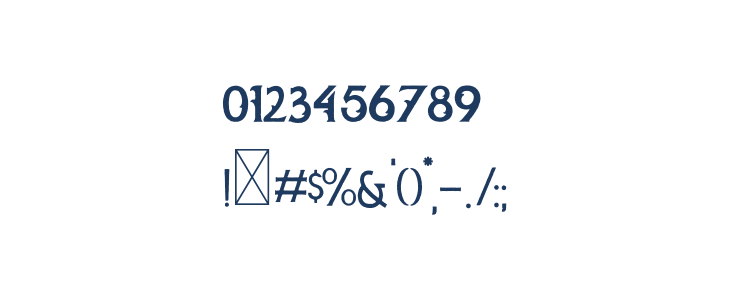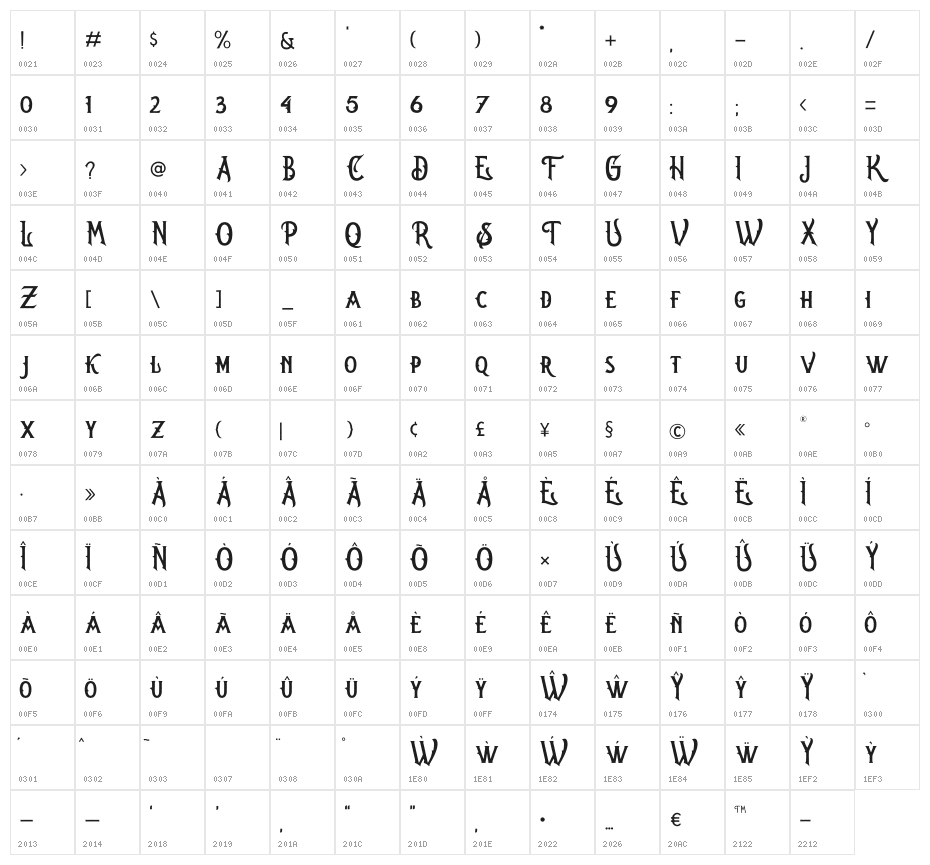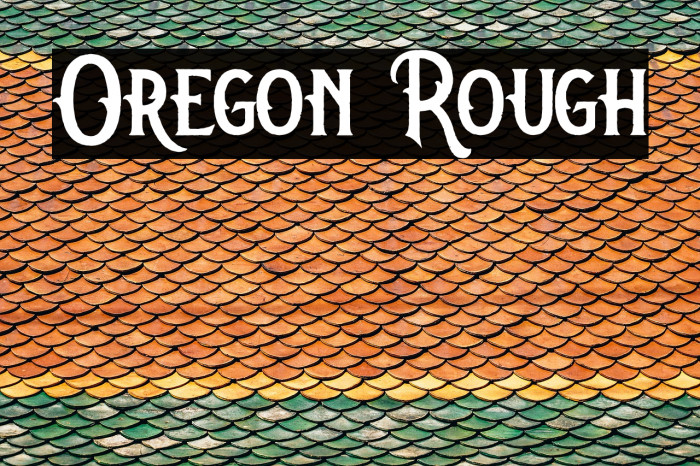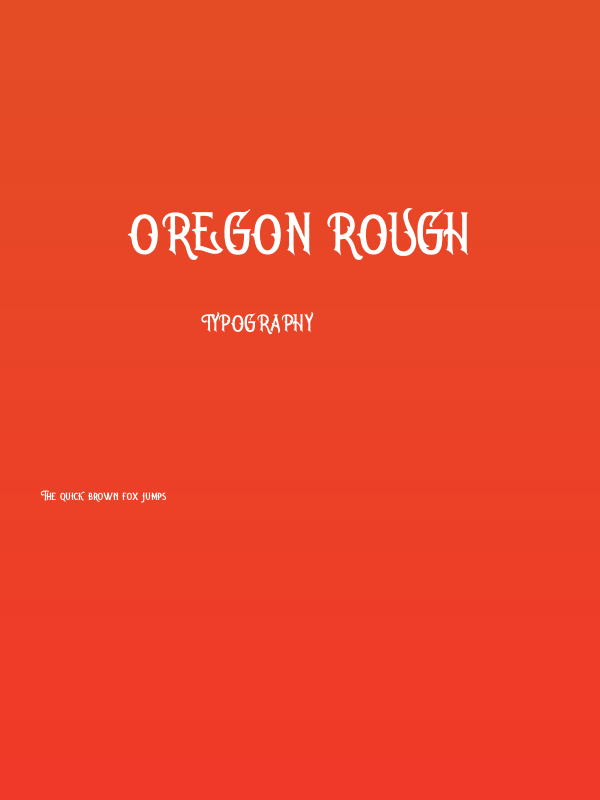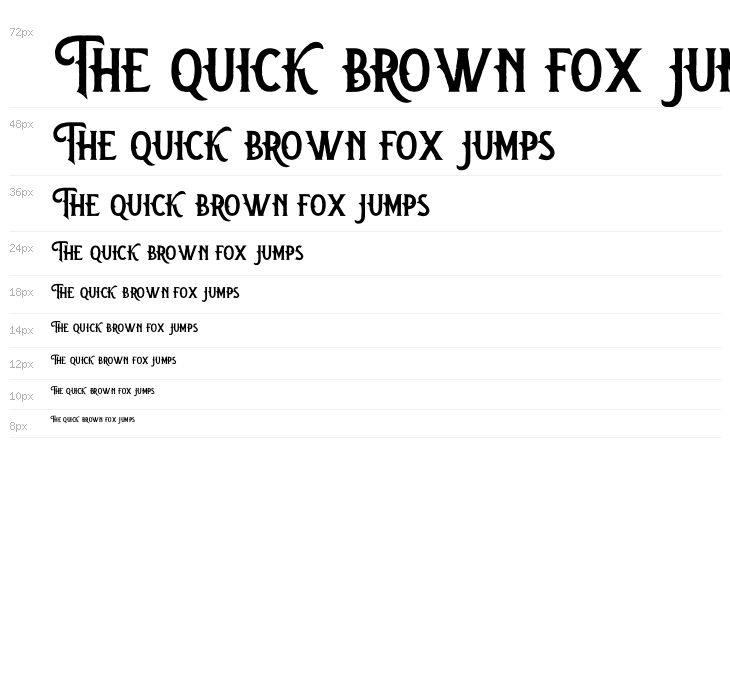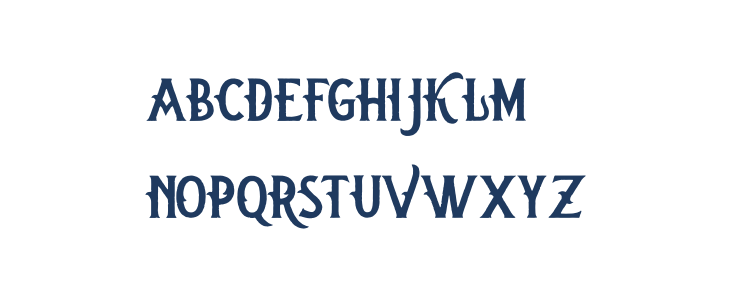
Oregon Rough Font
Oregon Rough Description
This font features a bold and rugged design, characterized by sharp, angular lines and a distinct Gothic influence. The uppercase letters are particularly striking, with exaggerated serifs and a medieval flair that gives them a dramatic appearance. The lowercase letters maintain this aesthetic, though they are slightly more subdued. Numbers and special characters are consistent with the overall style, ensuring a cohesive look across all text elements. The font's rough texture adds an element of authenticity and vintage appeal, making it ideal for projects that require a touch of historical or fantasy-themed design.
| Proposed Projects | Ideal for fantasy book covers, historical event posters, themed restaurant menus, and video game graphics. |